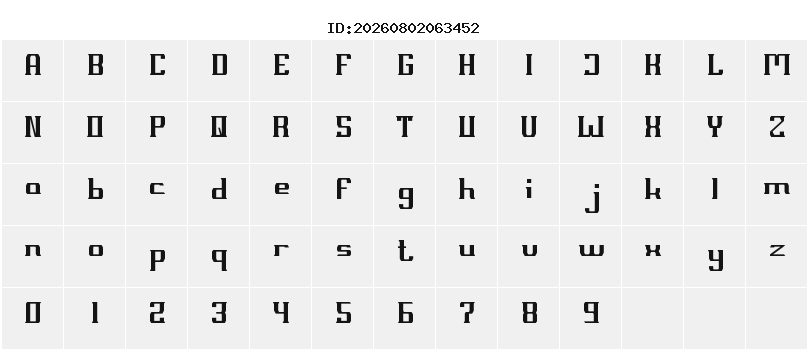
MILLENIUM 3 Preview
• Font Name: MILLENIUM 3
• Full Font Name: MILLENIUM 3
• Version: Version 1.00 February 15, 2014, initial release
About MILLENIUM 3.ttf
MILLENIUM 3.ttf is a modern, elegant sans-serif font designed for ultimate readability and visual harmony. Perfect for branding, headlines, web design, and print materials.